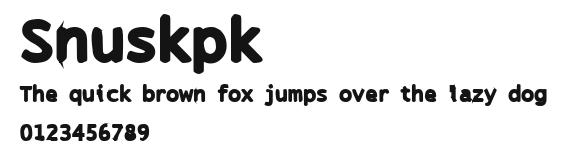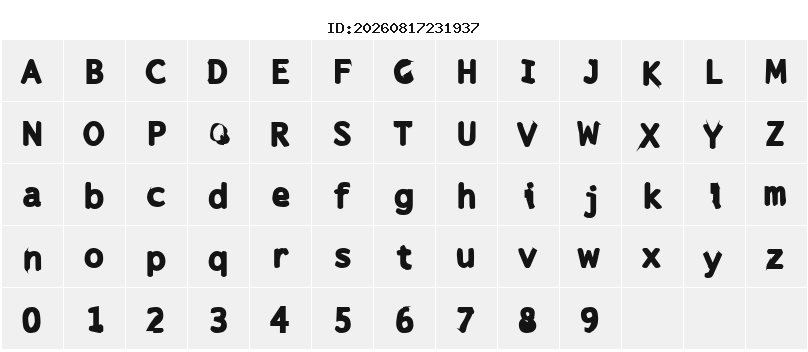
• Font Name: Snuskpk
• Full Font Name: Snuskpk
About Snuskpk.ttf
Snuskpk.ttf is a modern, elegant sans-serif font designed for ultimate readability and visual harmony. Perfect for branding, headlines, web design, and print materials.